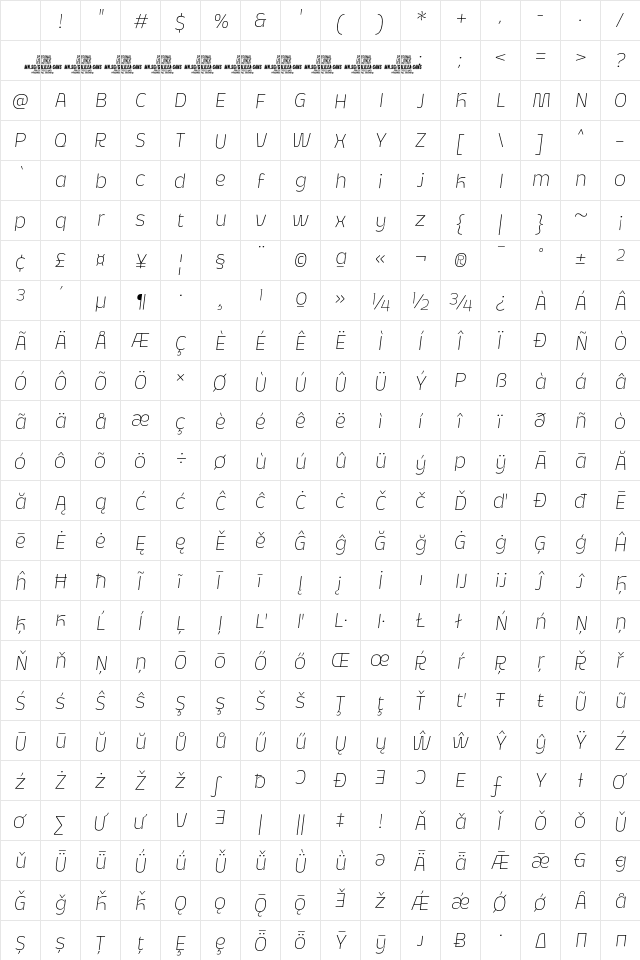
Complete Galilea Sans PERSONAL USE Thin Italic glyph index. Displaying only characters natively supported by Galilea Sans PERSONAL USE Thin Italic font.
Galilea Sans PERSONAL USE Thin is a composed and adaptable typeface that performs quietly and consistently across a wide range of design contexts. The slanted form adds forward momentum and visual energy. Its slender proportions lend an understated elegance to any composition.
Pro Tip: Use Galilea Sans PERSONAL USE Thin for emphasis, pull quotes, and subheadings where its slanted energy can add rhythm to the layout.
Who designed the Galilea Sans PERSONAL USE Thin Italic font?